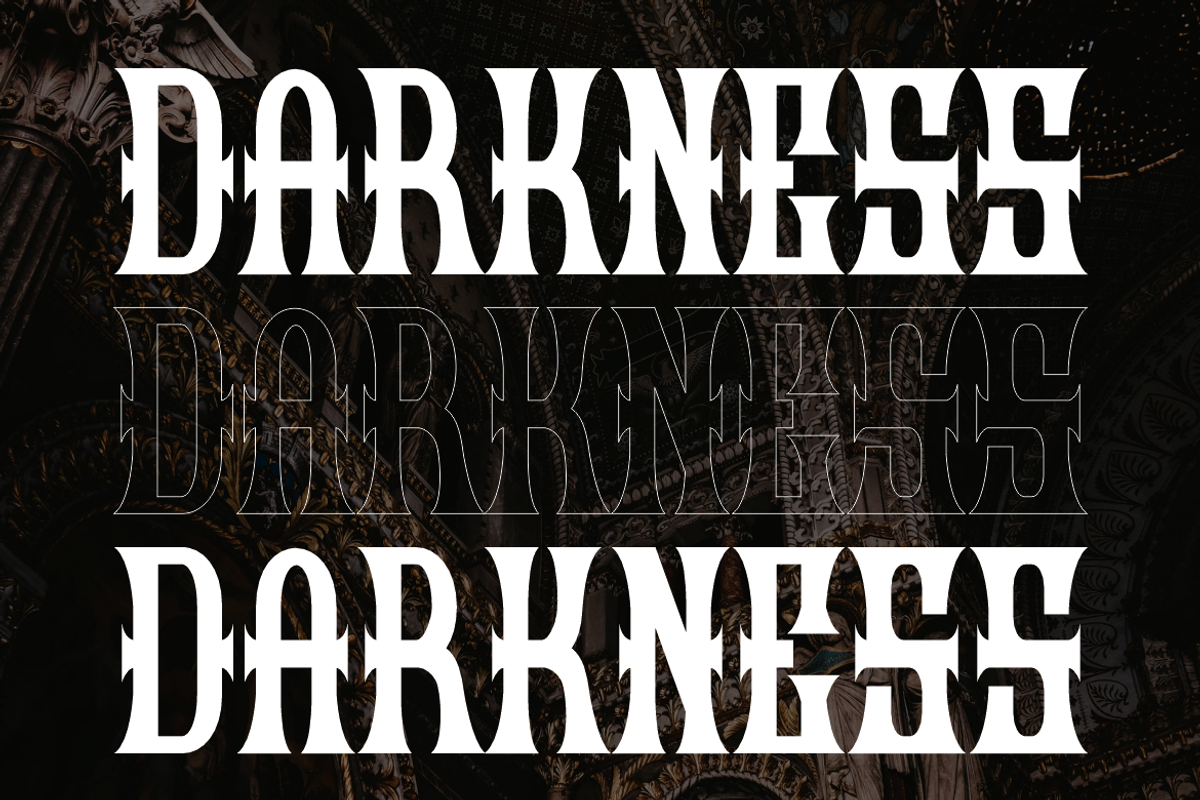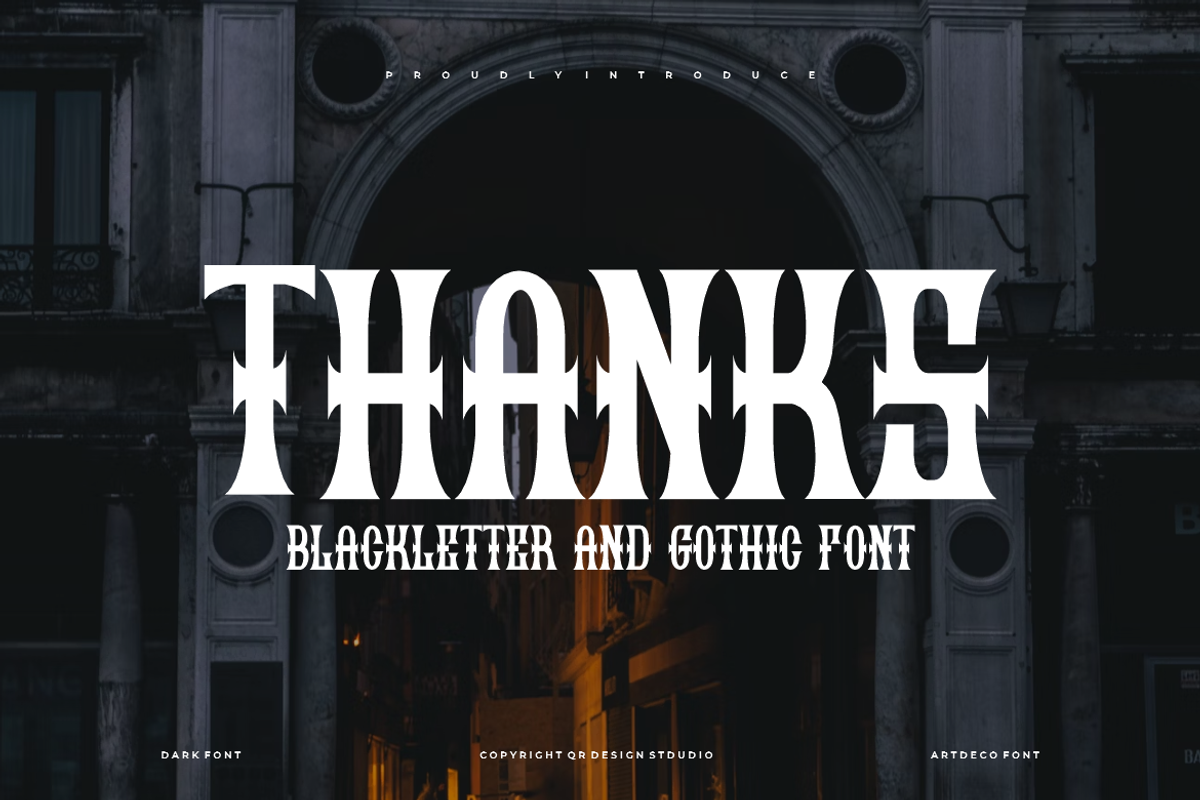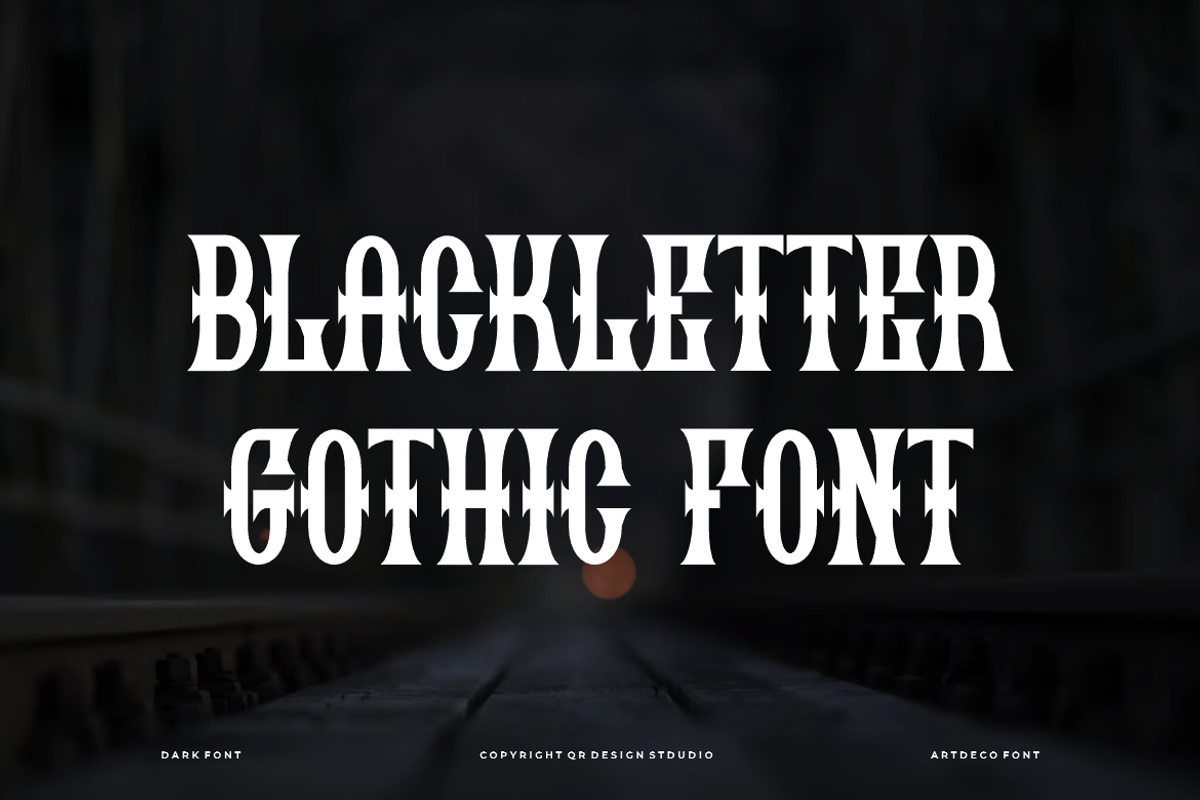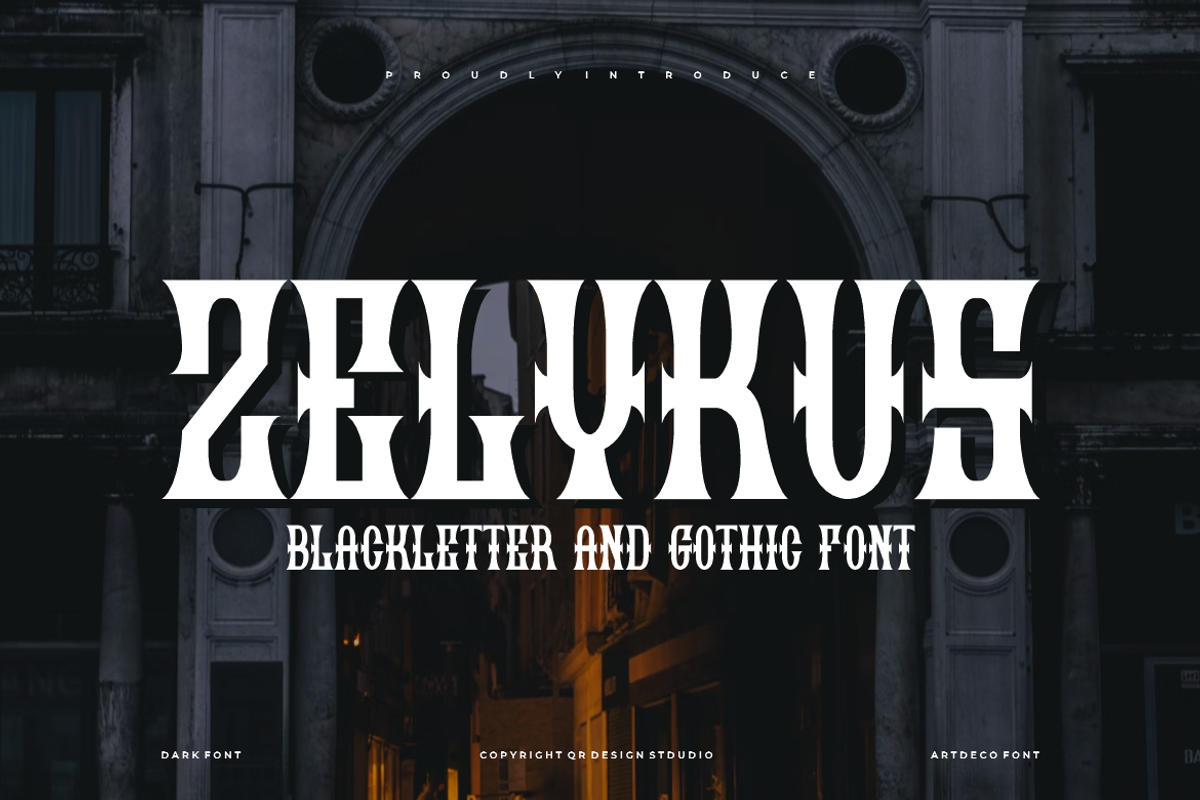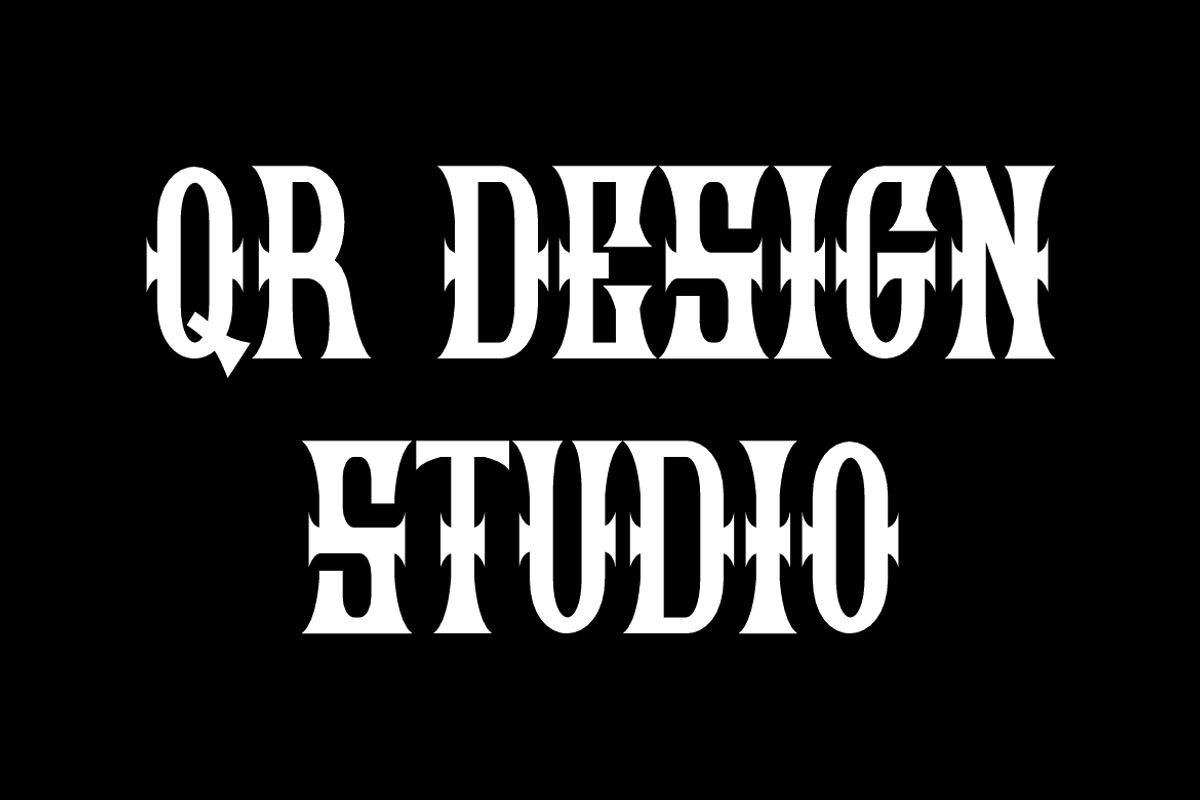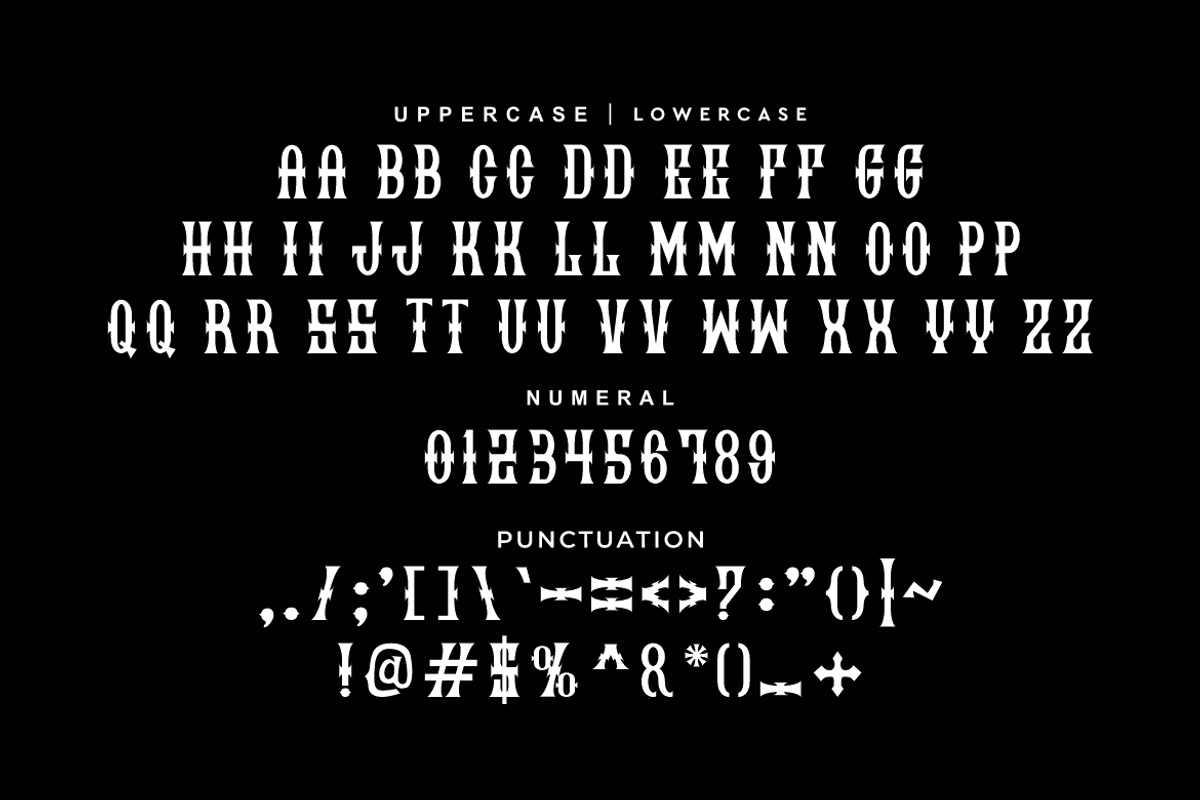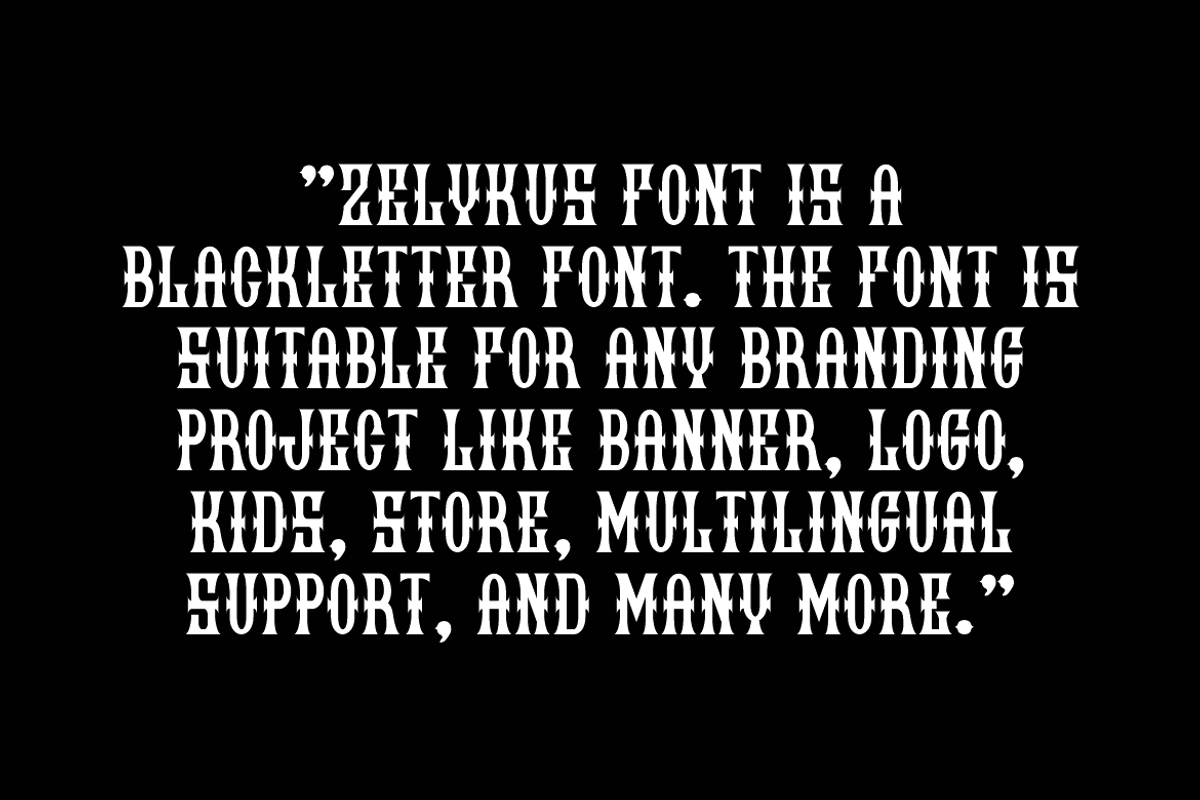
Zelykus - Blackletter & Gothic Font
Zelykus Font is a artdeco and authentic display font. The font is suitable for any branding project like poster, logo, sport, and many more. Outstanding in a wide range of contexts.